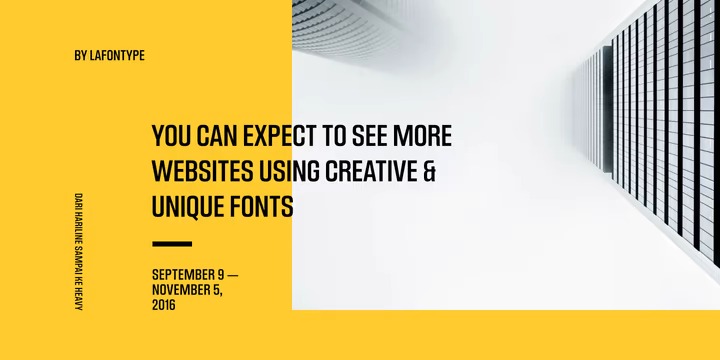
Scaffold Font Family
Scaffold Sans Serif Font
This font family is sleek, condensed, extremely legible & flexible available in 14 styles. With a rectangular shaped structure and solid weight that makes it look strong and elegant. From hairline to heavy Scaffold comes with multiple languages and OpenType features such as ligatures, localized forms, fraction, ordinal, superscript, numerator, dnominator and subscript.